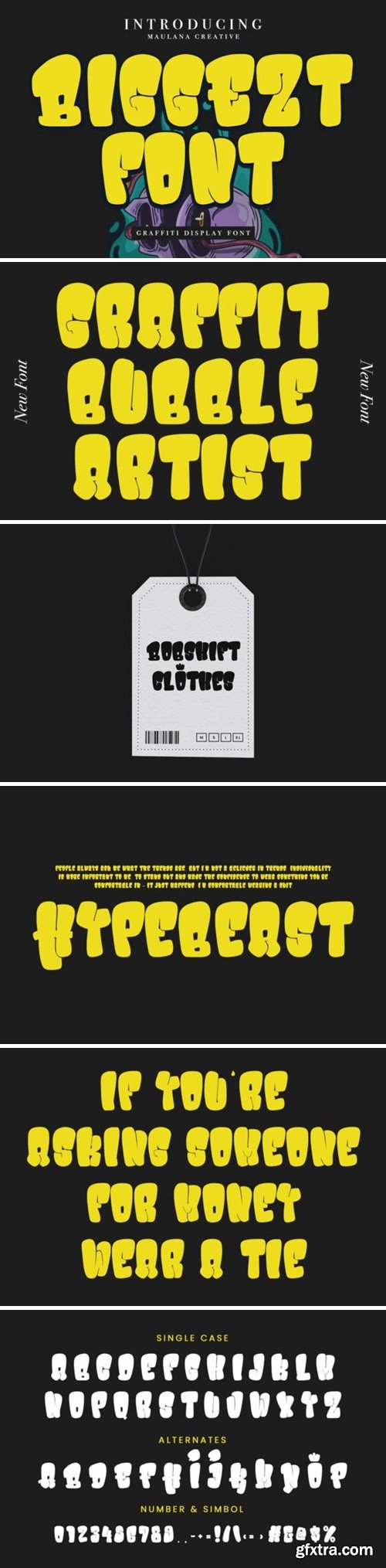
最大号涂鸦展示字体
Biggezt Graffiti Display Font. Bold stroke, fun character with a bit of ligatures and alternates. To give you an extra creative work. Biggezt font support multilingual more than 100+ language. This font is good for logo design, Social media, Movie Titles, Books Titles, a short text even a long text letter and good for your secondary text font with script or serif. Make a stunning work with Biggezt font.